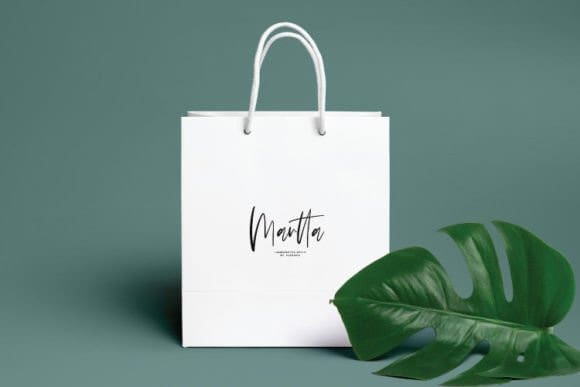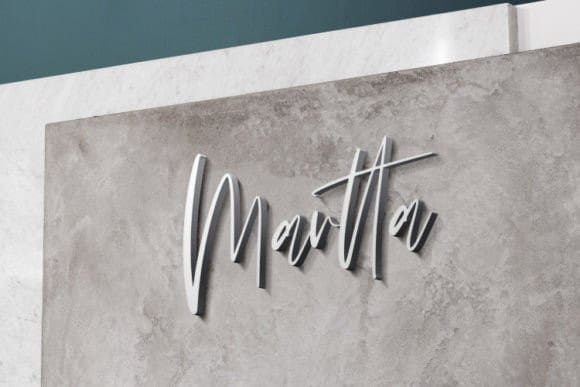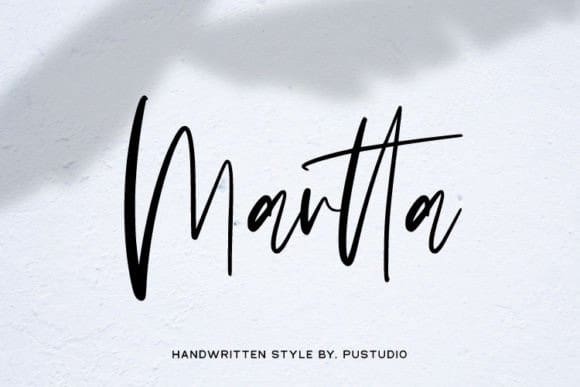
Martta Handwritten Font
Martta Handwritten Font is a handwritten script font with the perfect choice to spice up your designs. With elegant and natural lines, this font gives a luxurious impression and sets it apart from other fonts. Flexible and easy to use, this font is suitable for many designs, logos, business cards, brochures, and more.